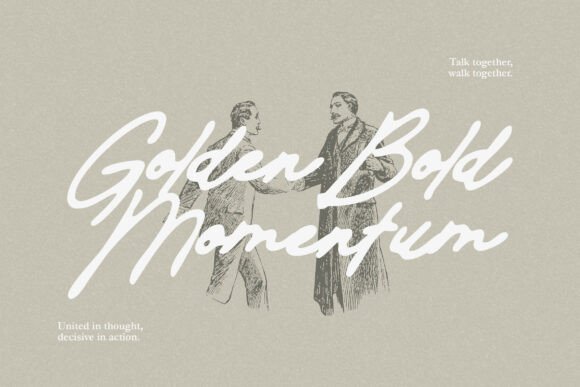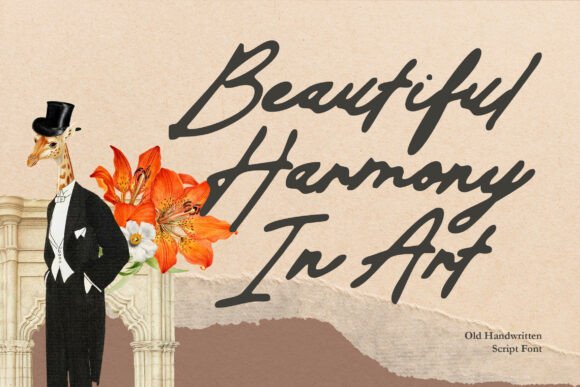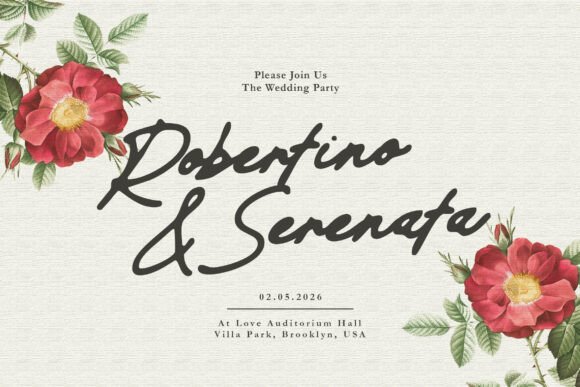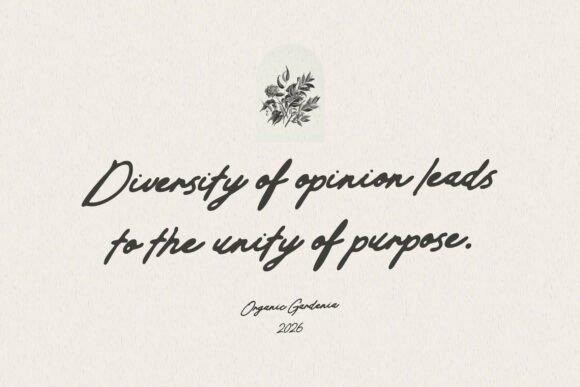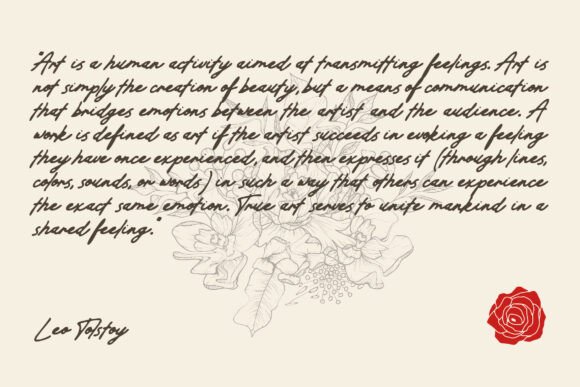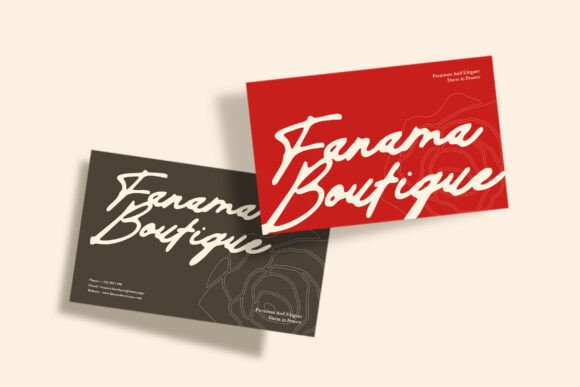
Introduction to Organic Gardenia Font
Have you ever stumbled upon an old, worn-out journal or a vintage garden label and felt an instant connection to the stories it holds? That’s exactly the magic of the Organic Gardenia Font. This stunning Old Handwritten Script Font is a treasure trove of character, capturing the authentic texture of ink on paper in a way that’s both earthy and charming.
As designers, we’re always on the lookout for high-quality design resources that can elevate our creative projects. The Organic Gardenia Font is a game-changer, offering a unique blend of natural, rhythmic flow and organic loops that make it perfect for brands championing sustainability, nature, and handcrafted quality.
Key Features of Organic Gardenia Font
- High-quality, elegant design perfect for creative projects and design resources.
- Unique, hand-drawn style with a touch of organic elegance, making it perfect for creative projects and design resources.
Honest Review: Organic Gardenia Font
I recently came across the Organic Gardenia Font and I must say, it’s a great addition to any designer’s toolkit. The high quality design and beautiful aesthetic make it a perfect resource for creative projects.
One of the standout features of this font is its transparent background, which allows for seamless integration into any design. This is especially useful for designers who need to create visually appealing graphics and illustrations.
- ✨ High quality design that looks beautiful in any application
- ⚠️ Limited versatility, as it’s primarily designed for elegant, whimsical uses
- ⚠️ May not be suitable for formal or professional projects
Overall, I’m impressed with the Organic Gardenia Font and I would definitely recommend it to designers who need a beautiful, high-quality design resource for their creative projects.
How to Use Organic Gardenia Font
To get the most out of the Organic Gardenia Font, use it on a transparent background to create a beautiful and elegant design. You can also use it in combination with other design elements to create a unique and creative project.
The Organic Gardenia Font is perfect for various design projects such as wedding invitations, greeting cards, and branding materials. Its elegant and sophisticated design makes it a great choice for high-end projects.